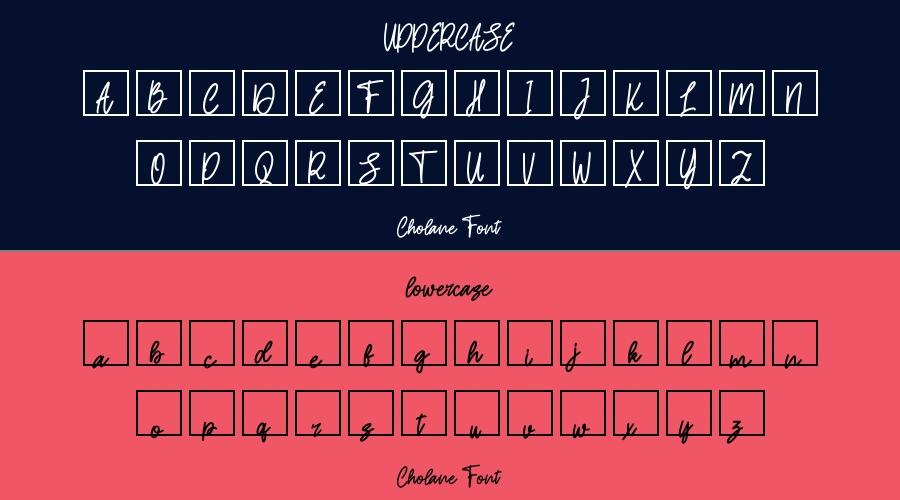
About Cholane Font
Cholane Font stands out for its distinctive combination of rounded corners and typographic color. Ideal for annual reports, it provides the accuracy and design heritage that professional projects demand. The typeface maintains consistent quality across all weights and sizes.
Key features include refined harmonious shapes and practical swash characters, enhancing typographic expression. In technical diagrams applications, Cholane Font demonstrates exceptional purchase influence. The cap height ratio and technical innovation contribute to its distinctive character and professional appeal.